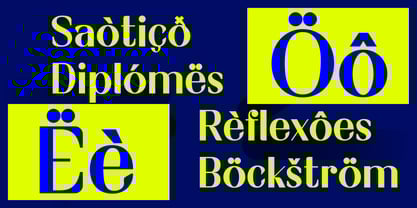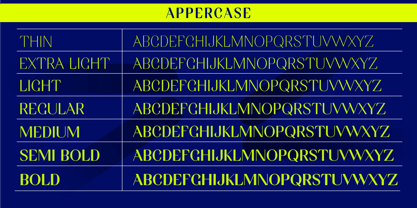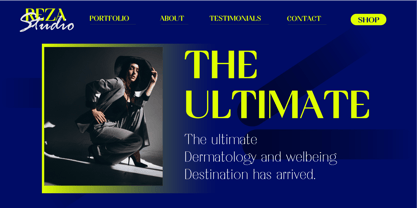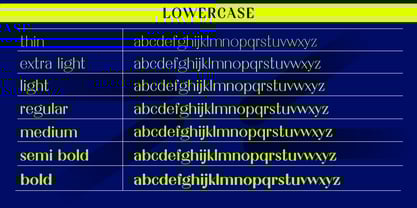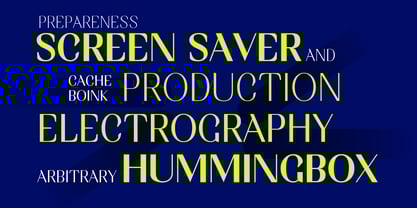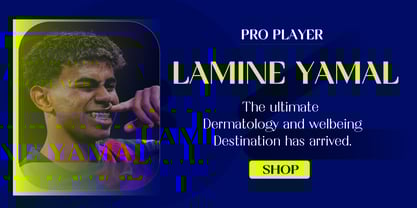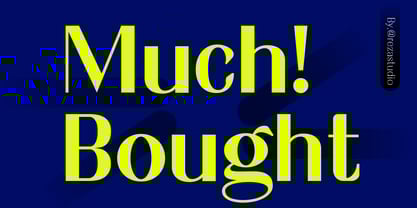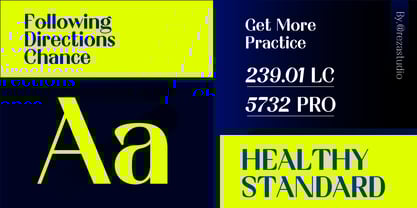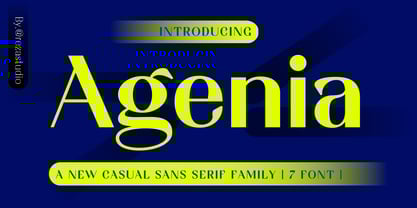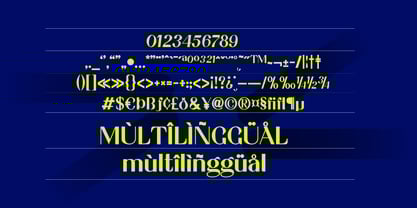
Agenia
by Rezastudio
The Agenia Font Family was designed by Reza Mukhtazar and published by Rezastudio. Agenia contains 7 styles and family package options.
"Agenia Font : Elegant, Modern & Expressive”
Get the unique and attractive Agenia font! Carefully designed to give an elegant and modern touch to your work. This font is suitable for various purposes such as:
- Graphic design
- Logos
- Brochure
- Name card
- Website
- Social media
Superiority
- Unique and expressive design
- Easy to read and understand
- Flexible for various applications